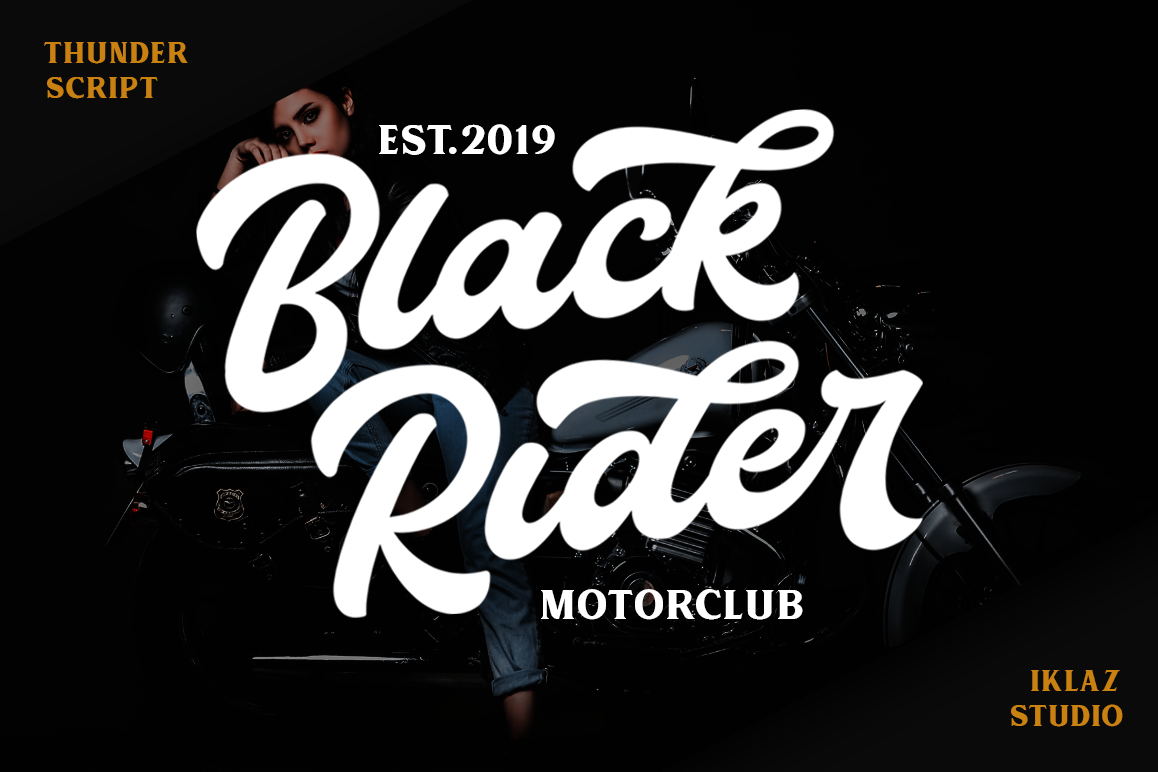
Thunder Script
Thunder Script is a hand-lettered bold and smooth script.This font is awesome for your creative project such as Logotype, Branding, Packaging, Merchandise,  label, and much more.
Thunder Script comes with standard character, numeral, punctuation and also alternates, standard and discretionary ligatures which  let you customize your designs.